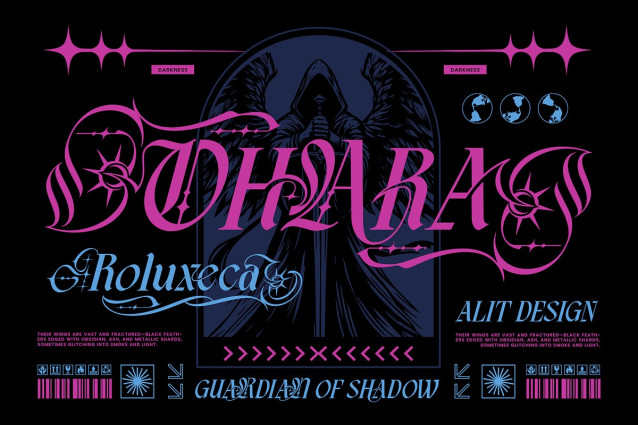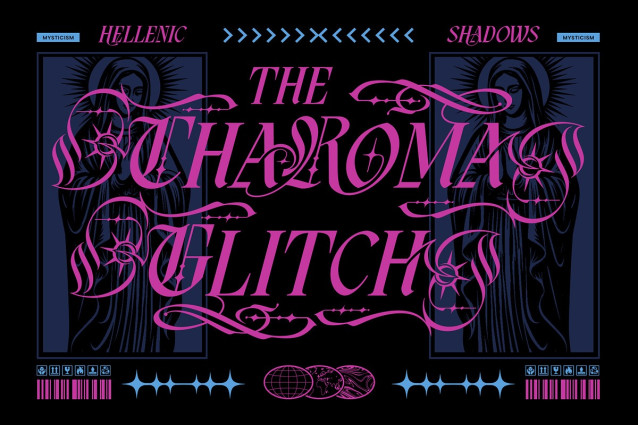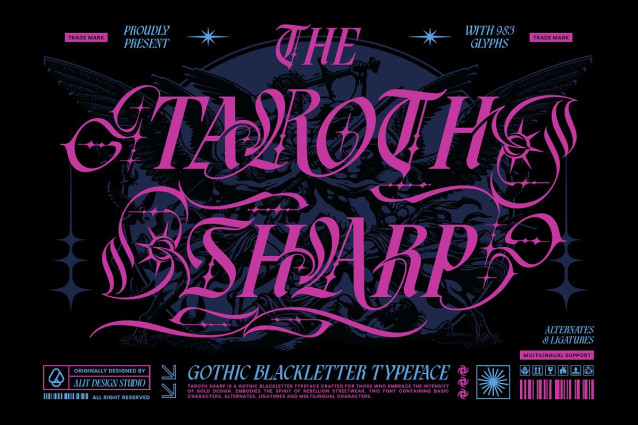
Taroth Sharp Font
Taroth Sharp Font a meticulously crafted Gothic Blackletter typeface designed for those who dare to stand out. Inspired by the intensity of heavy metal aesthetics and the raw energy of modern streetwear, this font is not just a typeface—it is a visual statement.
Taroth Sharp bridges the gap between ancient calligraphy and contemporary design. It features sharp, aggressive terminals blended with elegant, swirling swashes that evoke a sense of dark mysticism and lost glory. Whether you are designing a logo for a motorcycle club, merchandise for a band, or a poster with a dark academic vibe, Taroth Sharp delivers an impact that is both fierce and sophisticated.
With a staggering 983 glyphs, Taroth Sharp is a powerhouse of customization. It is packed with extensive OpenType features, including multiple stylistic sets, alternates, and ligatures, allowing you to create typography that looks truly custom-made.